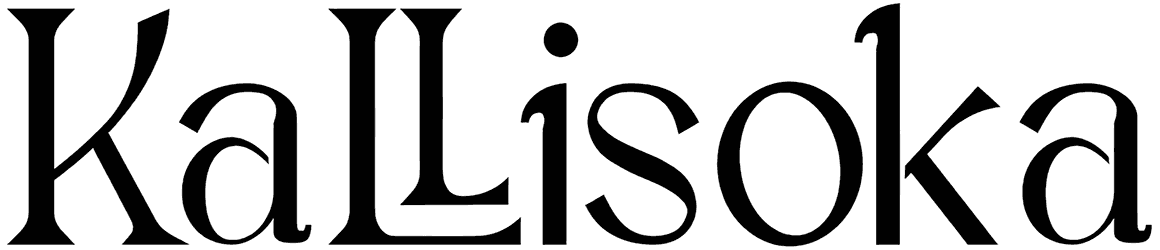
Kallisoka Font
Kallisoka determines how visitors will experience your written content and have no problem reading your messages. This serif font has an inherent beauty, ideal for body text and title content.
So if you’re looking for a safe font that creates a personal aesthetic in your content and draws the viewer in to continue, this calligraphy font is your spot. So press the download button and prepare for an exciting adventure in projects with different themes.